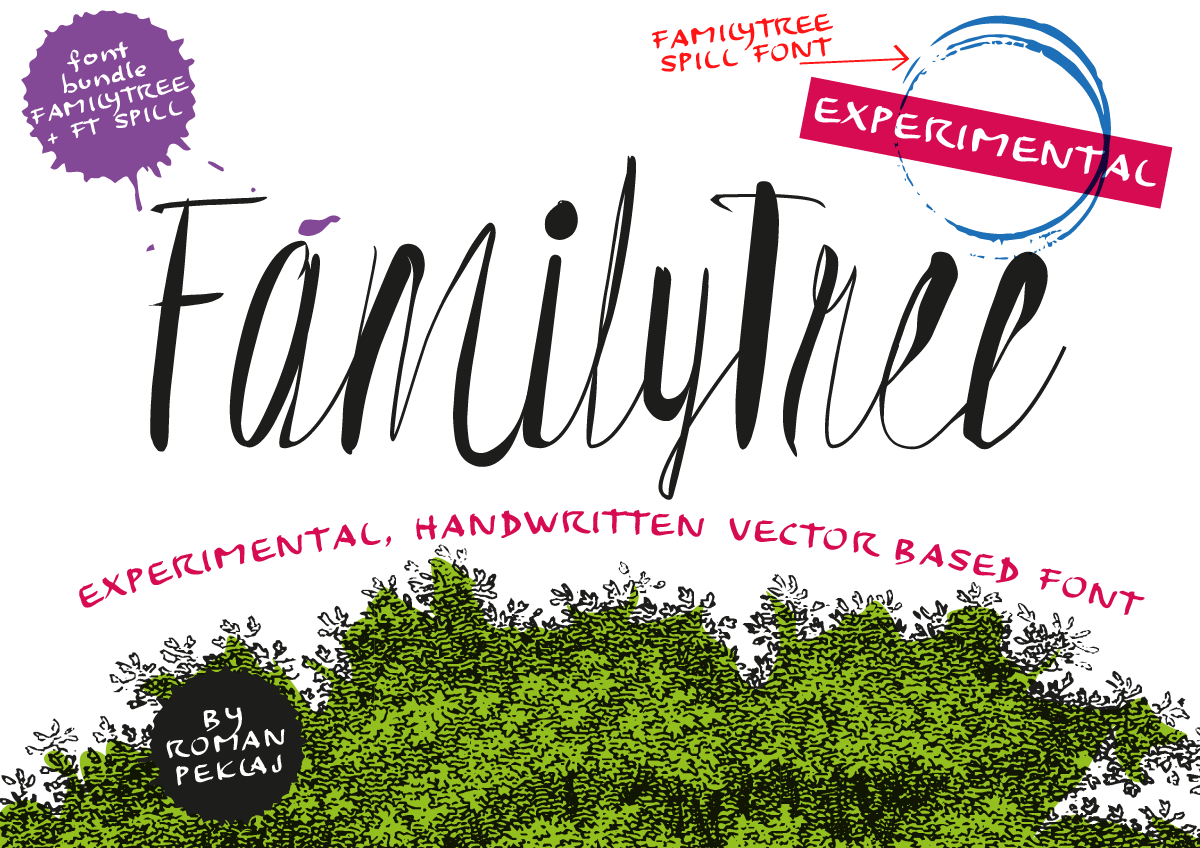
FamilyTree Font
FamilyTree font is a research project designed to explore alternative digital tools. The result is a typeface with a touch of nostalgia, real pens and spilled ink. A typeface where everything looks imperfect and the result in the end is wonderful.
FamilyTree font includes uppercase and lowercase letters, massive collection of ligatures, initials, and endings. Support Latin Basic, Western European, Central, and South Eastern European languages.
For a better ink experience, FamilyTree font comes with Spill icons font.